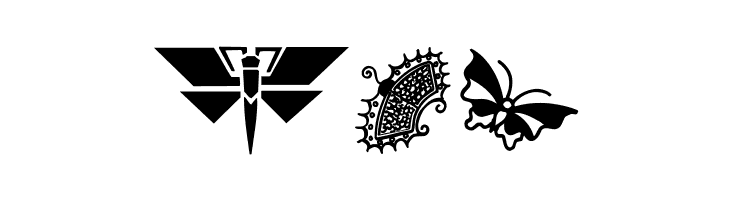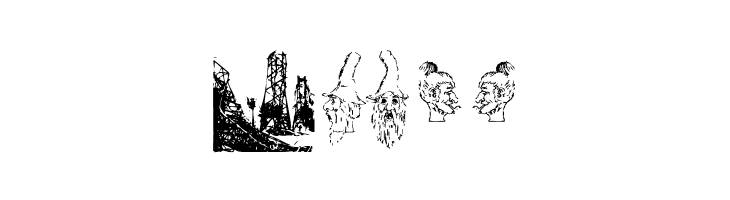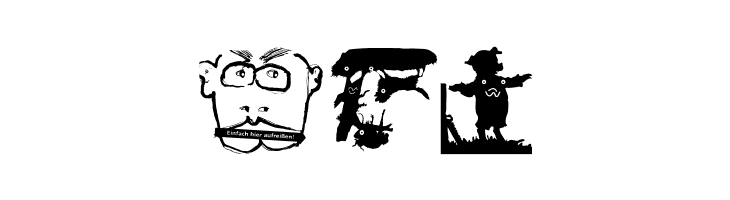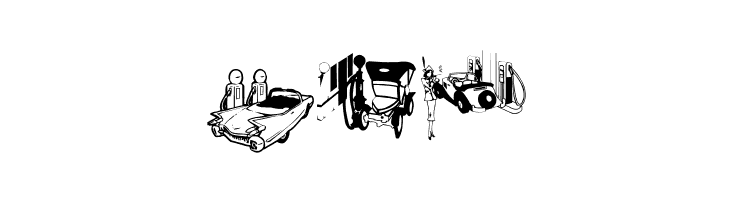
• ButterflyAndCo
A decorative collection of butterfly and insect-themed dingbats.
• LineArtVectoria
A dingbat font featuring diverse line art vector illustrations.
• ApishOne
A whimsical and artistic display font with unique illustrated characters.
• HiddenSigns
A decorative font with glyph-like symbols resembling ancient hieroglyphs.
• ArthritishSpringtime
An elegant calligraphic font with flowing, ornate strokes.
• Artist Medium
A modern, geometric font with clean lines and uniform stroke widths.
• EyesAndSoOn
Decorative dingbat font with circular, spiked icons and abstract motifs.
• RefuelStation
Illustrative, automotive-themed pictogram font.
• Anarchica
A bold, graffiti-inspired font with sharp, angular strokes and a dynamic, hand-drawn style.
• MoreHaringe
A lively, illustrative decorative font inspired by expressive street art.